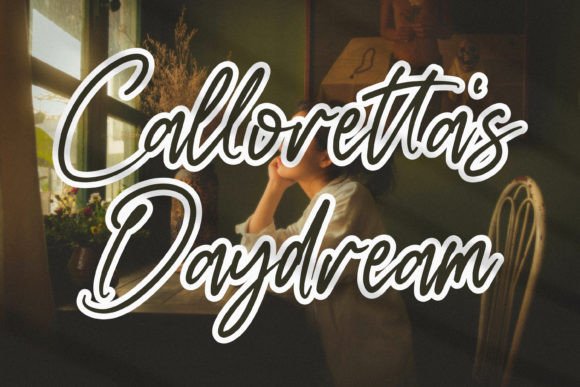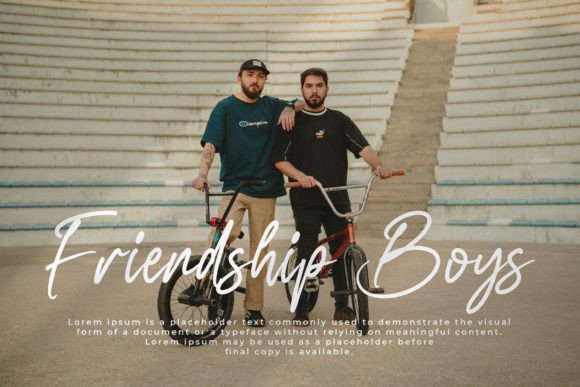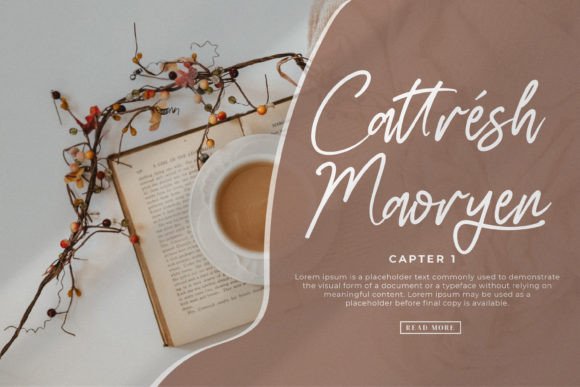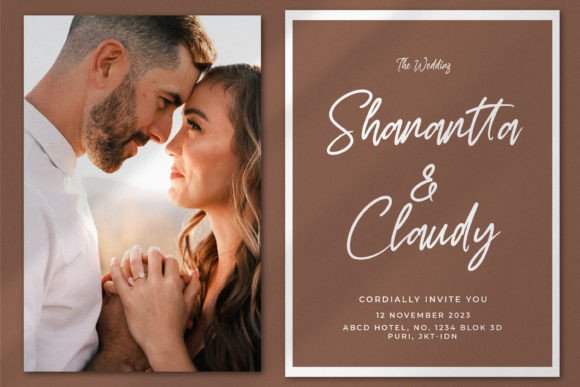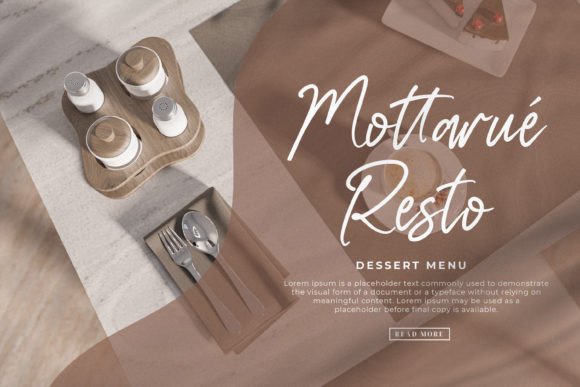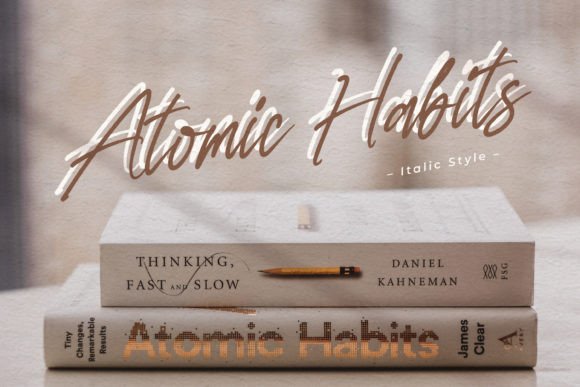
The Elusive Perfect Font: My Encounter with Authentty Wegnotta
Ah, the quest for the perfect font. We’ve all been there – stuck in the middle of a design project, scrolling through font libraries, and yet, nothing seems quite right. I recall a particularly frustrating moment when a client asked for a ” luxurious, handwritten feel” for their branding project. After hours of searching, I stumbled upon Authentty Wegnotta, a premium handwritten script font that instantly caught my attention.
An Honest Review of Authentty Wegnotta
- ✨ Elegant, flowing script that adds a touch of sophistication to any project
- ✅ Highly versatile – perfect for logos, branding projects, product packaging, and more
- 💫 Beautifully crafted to convey a sense of luxury and premium quality
- 🎨 Excellent for creative hobbyists and designers looking for a high-end font
While Authentty Wegnotta is an exceptional font, there are a few minor considerations to keep in mind:
- 🤔 May require some adjustments for optimal spacing and kerning
- ⚠️ Limited availability of certain characters or glyphs, but this can be addressed with OpenType features
Authentty Wegnotta was crafted with inspiration from classic luxury brands and high-end design. The font’s creator aimed to evoke a sense of sophistication and elegance, perfect for projects that require a premium touch. Whether you’re designing a logo, packaging, or branding materials, Authentty Wegnotta is sure to impress.
Q: Is Authentty Wegnotta suitable for body text?
A: While Authentty Wegnotta is an elegant font, it’s best suited for headlines, titles, and short paragraphs. For body text, consider a more readable font to ensure optimal legibility.